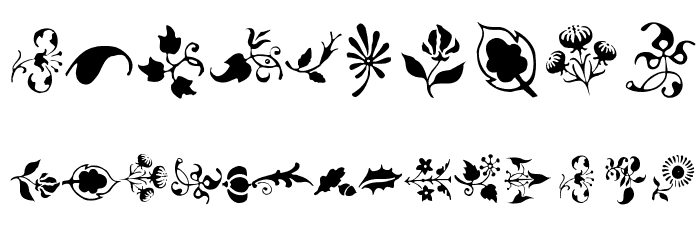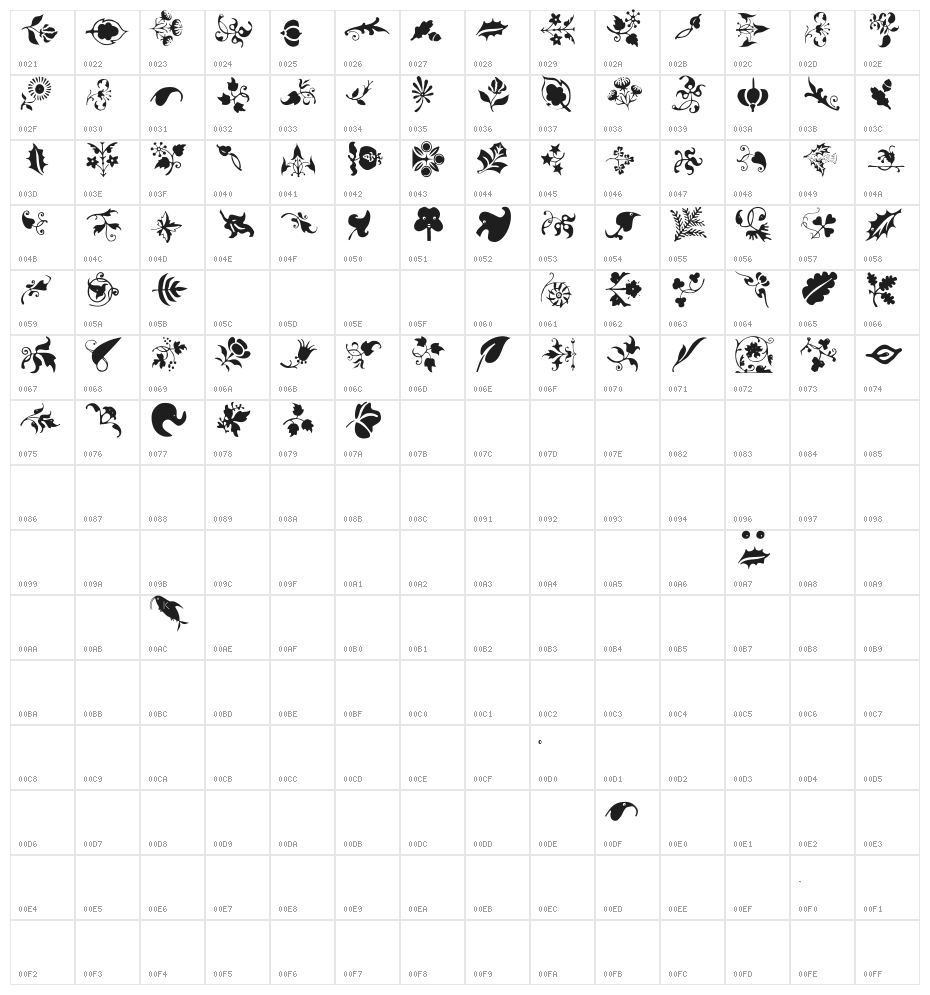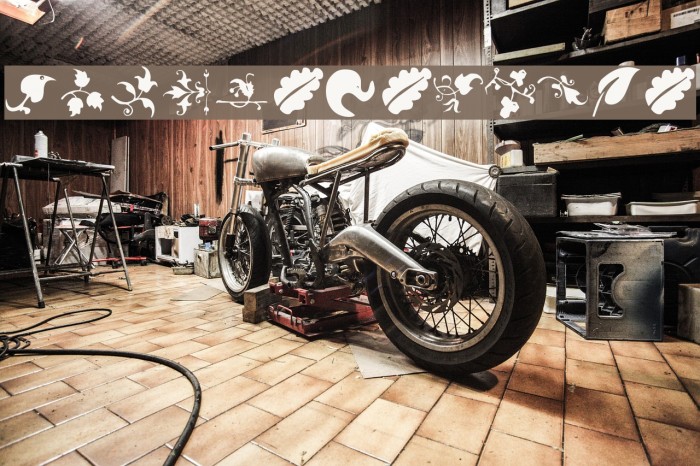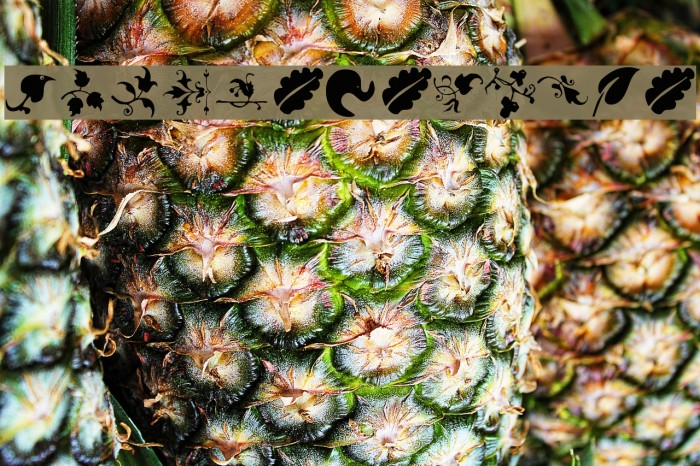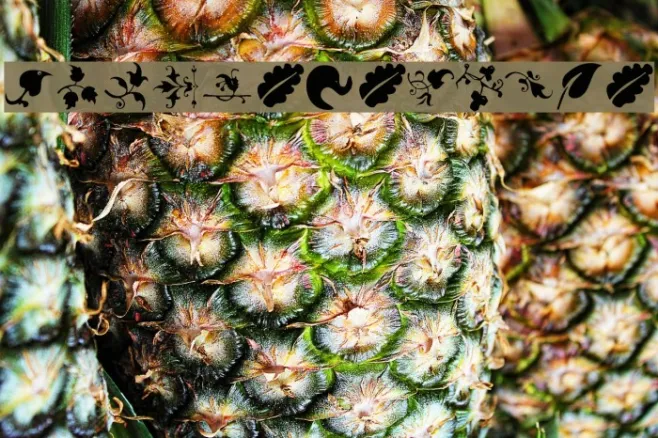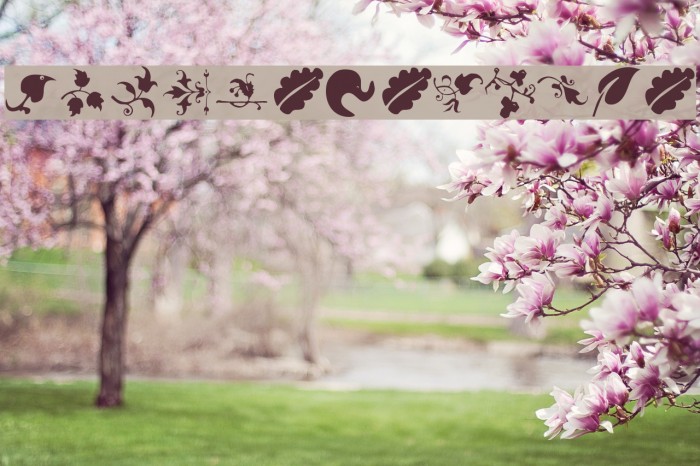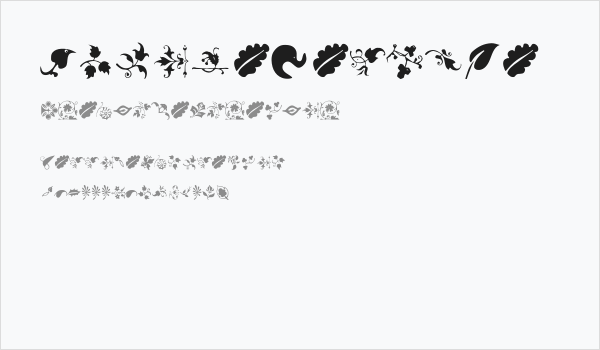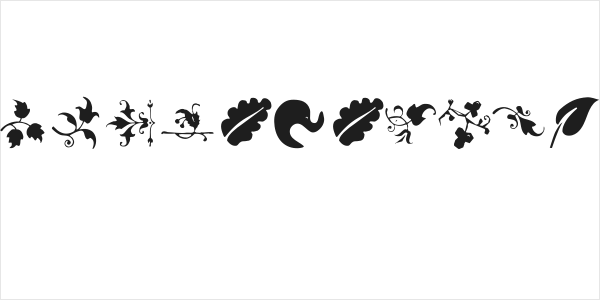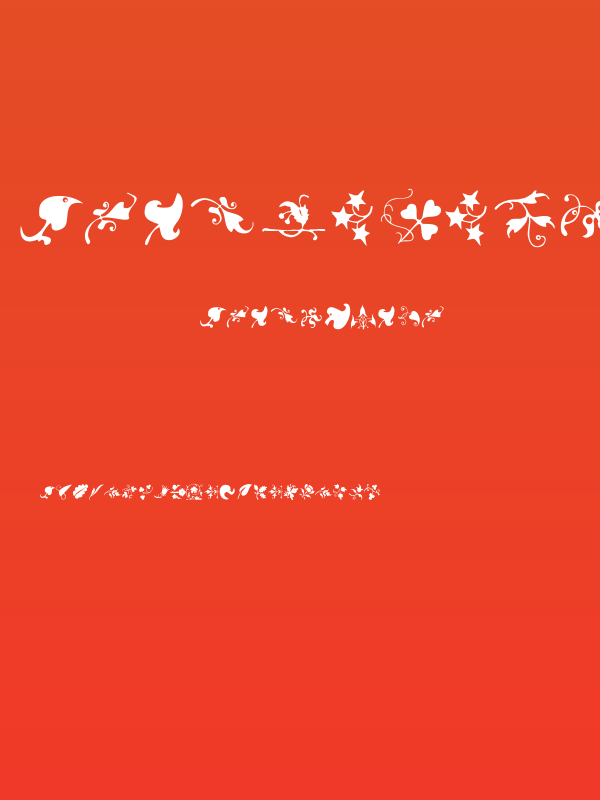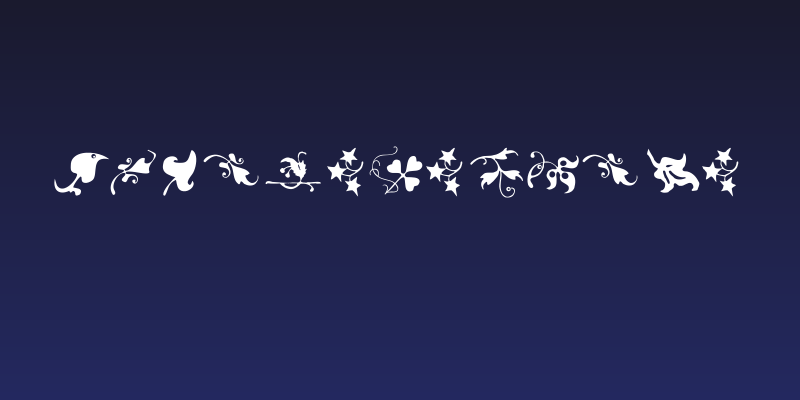
TypoJewelsOne Font
TypoJewelsOne Description
A decorative dingbat font featuring a wide variety of intricate floral and botanical motifs, each glyph presenting a unique ornamental design with high detail and organic shapes.
| Overall Style | Decorative, Vintage |
| Use Case | Decorative elements, Borders, Accents |
| Proposed Projects | Wedding invitations, decorative borders, vintage-inspired packaging, greeting cards, scrapbooking, ornamental dividers. |